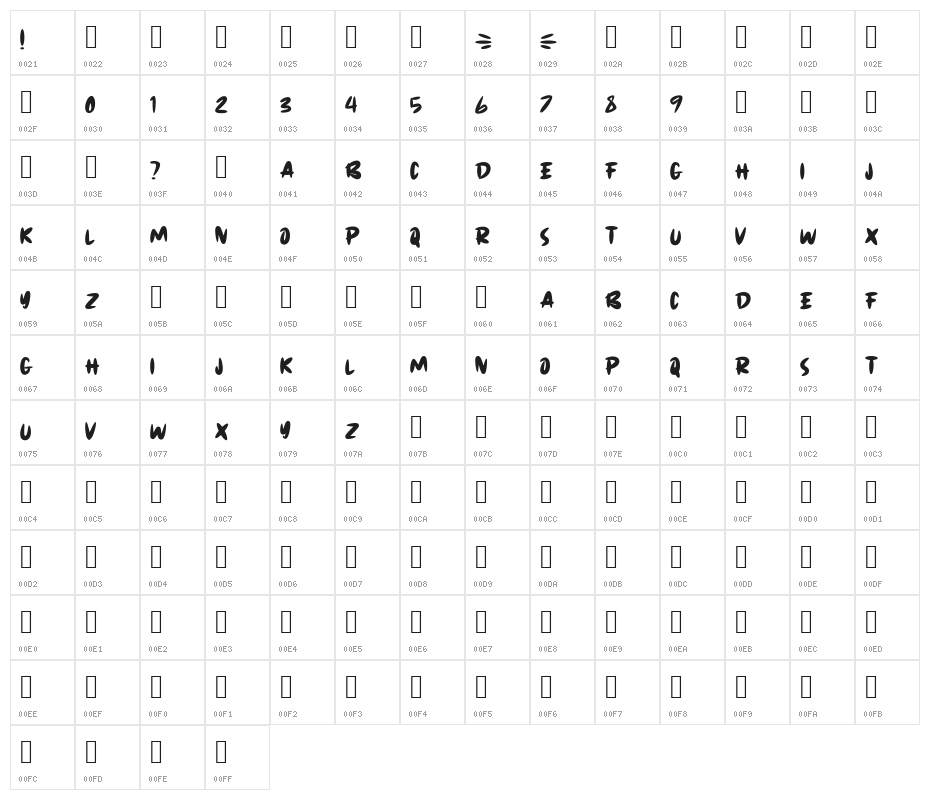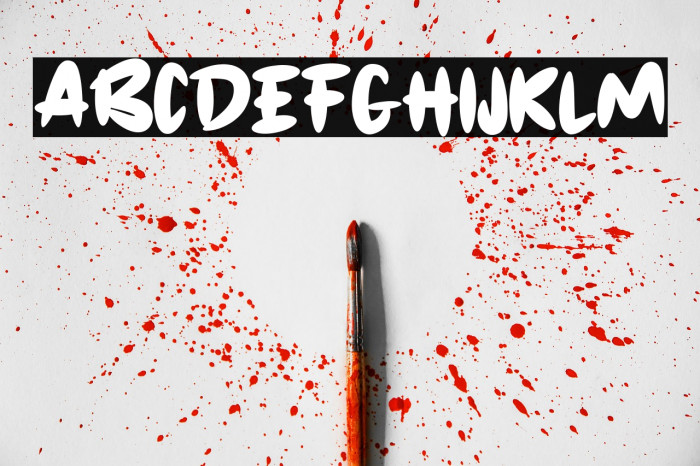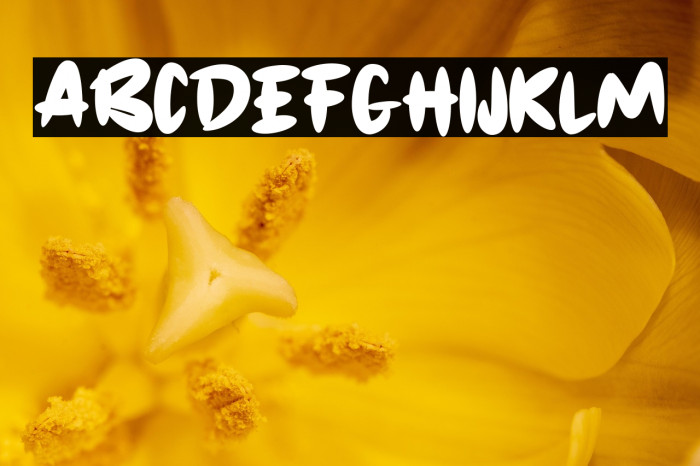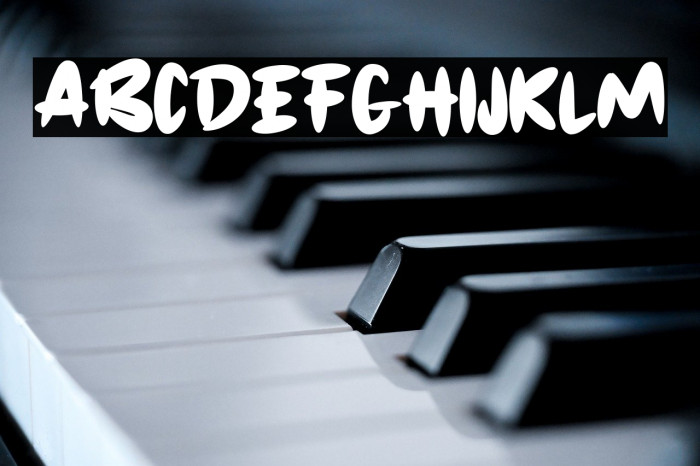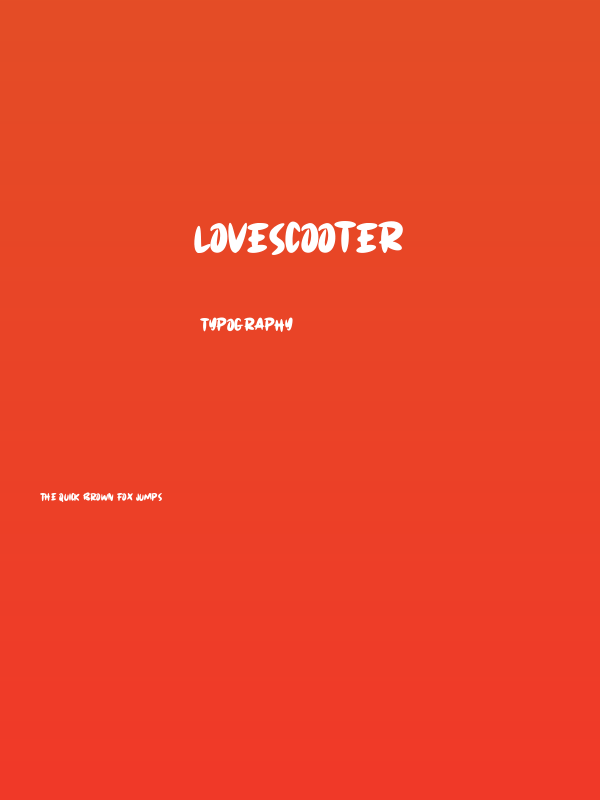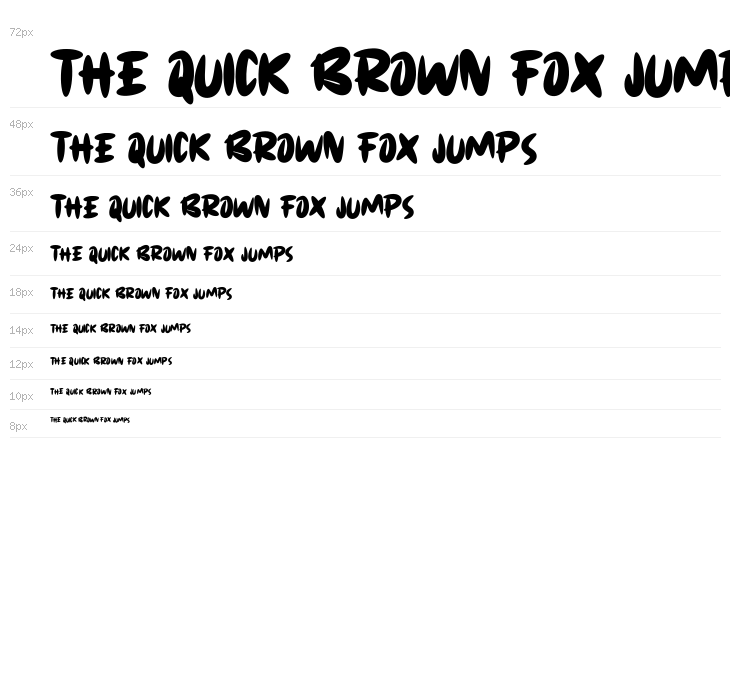
LOVESCOOTER Font
LOVESCOOTER Description
This font features a bold and playful handwritten style, characterized by its thick strokes and rounded edges. The letters have a dynamic and energetic appearance, with a slight slant that adds to its casual and informal feel. The uppercase and lowercase letters maintain a consistent style, while the numbers are equally bold and legible. Special characters like the exclamation mark and ampersand are designed with the same playful flair, making this font suitable for creative and fun projects.